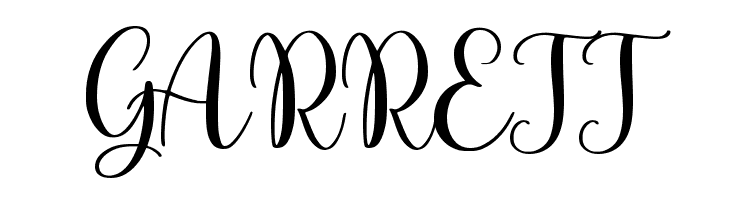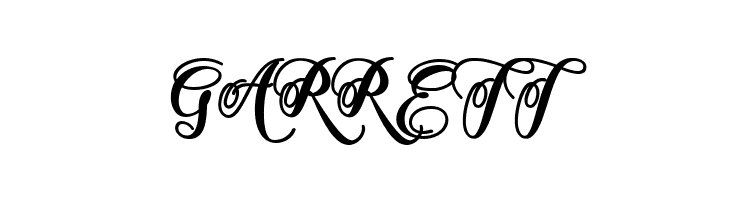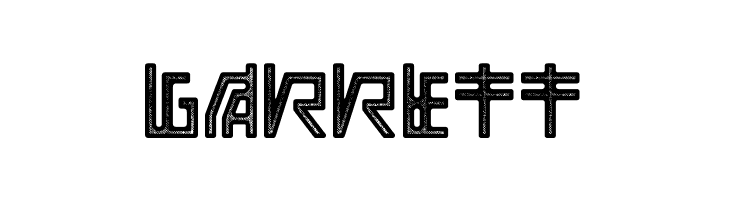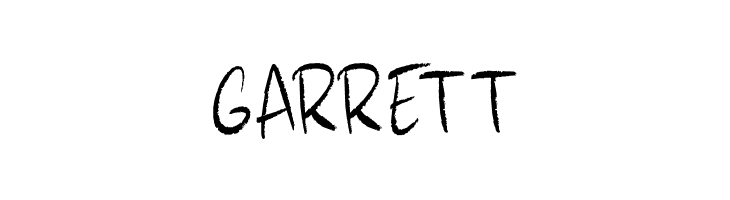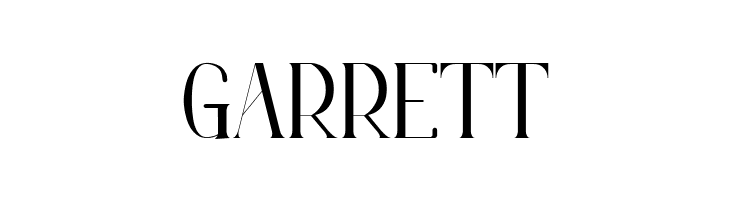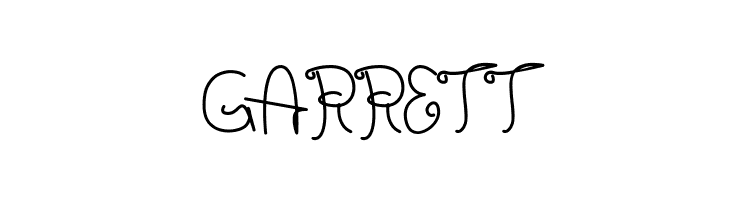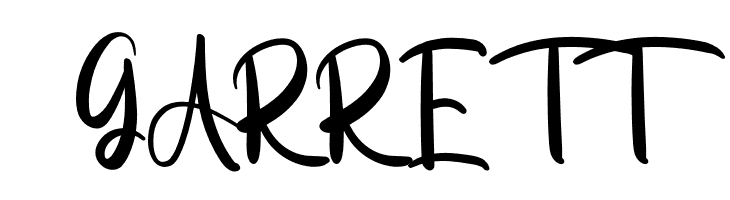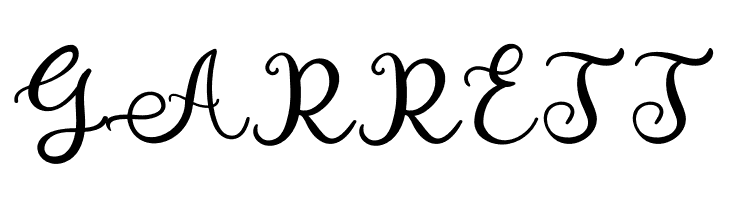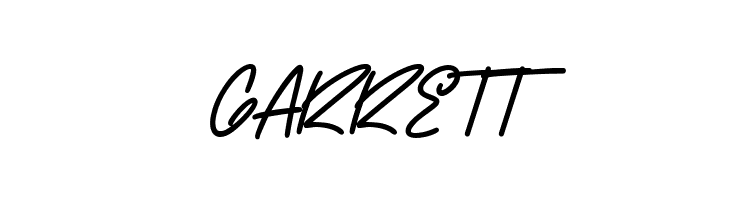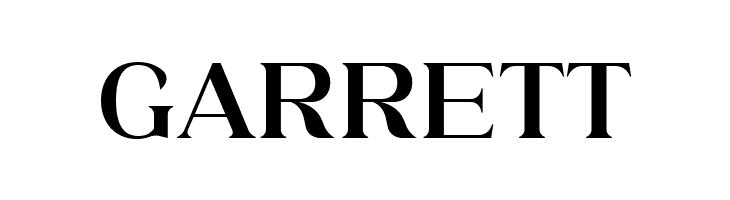
A modern, elegant script font with a flowing, handwritten style.
A bold, expressive script font with a handwritten, dynamic style.
An elegant script font with intricate curls and flowing lines.
A high-contrast, elegant font with modern and classic elements.
A lively, handwritten font with fluid and dynamic strokes.
A classic serif font with elegant curves and balanced proportions.
A classic serif typeface with sharp lines and balanced structure.
A lively and fluid handwritten font with smooth, connected strokes.
A bold, modern font with a distinctive three-stripe pattern.
A bold, grid-patterned decorative font with a modern and playful style.
A bold, geometric font with a unique double-line effect, perfect for striking displays.
A bold, geometric font with a honeycomb pattern, perfect for creative projects.
A bold, geometric outlined font with a modern and playful style.
A decorative font with a bold, grid-patterned style.
A bold, expressive script font with decorative swirls and high contrast.
An elegant, flowing script font with a handwritten style.
A playful, artistic handwritten font with a brush-like texture.
A playful, bold font with rounded, bubbly characters.
An elegant, flowing script font with smooth, cursive strokes.
A playful, hand-drawn font with bold, rounded characters and a whimsical style.
An elegant script font with flowing cursive style and intricate flourishes.
An elegant script font with flowing, cursive style and intricate flourishes.
An elegant script font with flowing, cursive style and sophisticated flair.
An elegant, flowing script font with decorative flourishes.
An elegant script font with intricate loops and decorative flourishes.
A lively handwritten font with fluid strokes and a casual script style.
An elegant and flowing script font with graceful loops and cursive strokes.
A playful and elegant script font with flowing, interconnected letters.
A bold, geometric font with a grunge texture and industrial style.
A whimsical, hand-drawn font with decorative curls and playful style.
A bold, handwritten-style font with a playful and dynamic appearance.
A bold, handwritten-style font with playful curves and thick strokes.
A dynamic and elegant script font with bold, flowing letterforms.
A dynamic, cursive font with elegant, sweeping strokes and a modern calligraphic style.
A bold, handwritten font with a dynamic and playful style.